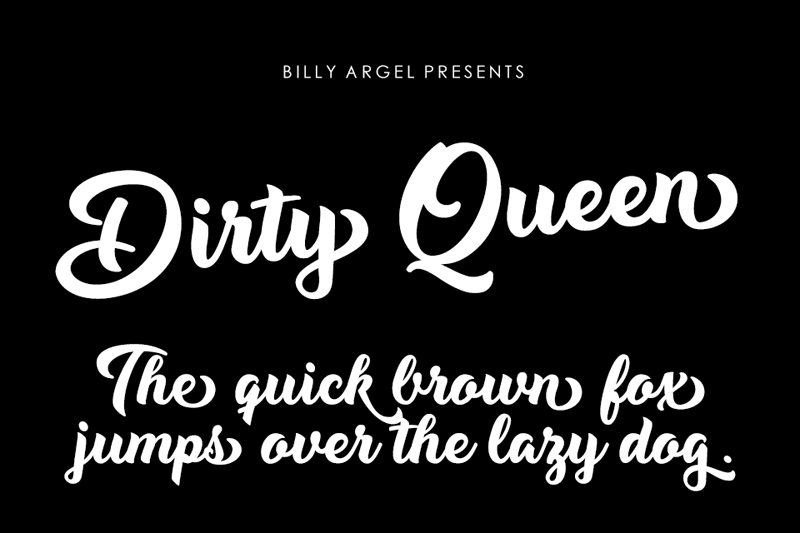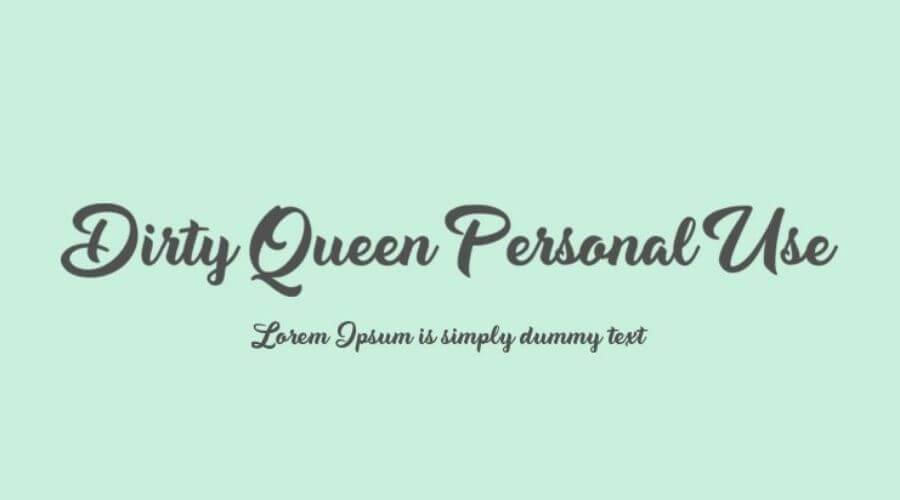
Dirty Queen Font
Billy Argel produced Dirty Queen, a high-quality script and Brush typeface, available for free for personal use. All uppercase and lowercase letters and a few special characters are included in the Font. Dirty Queen Font belongs to the Dirty Queen Personal Use font family. Regular is the Font’s subfamily. Dirty Queen Personal Use is the full typeface name. DirtyQueenPersonalUse is the Postscript font name for this typeface. This typeface belongs to the Scripts family.
The Dirty Queen typeface can be used to create unique graphics, covers, shop and store names, and logos. Dirty Queen is also ideal for branding projects, homeware designs, product packaging, and as a classy text overlay on any backdrop image. In a wallpaper with a dark background, the Font looks fantastic. You may use it in bold texture to give it a more decisive effect.
Dirty Queen Font View
| Name | Dirty Queen Font |
| Style | Script |
| Designer | Billy Argel |